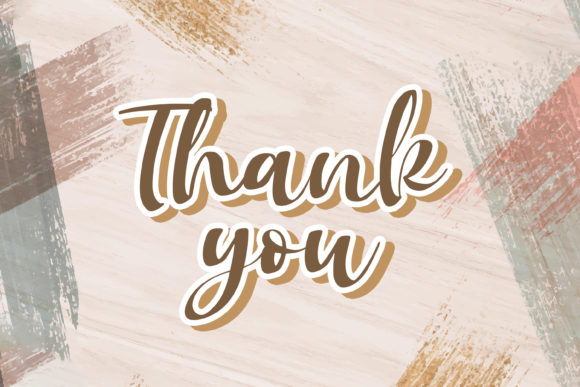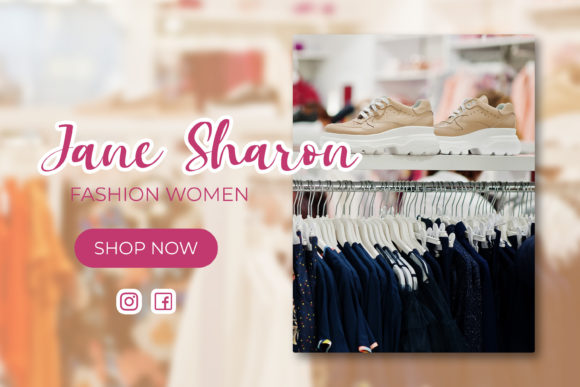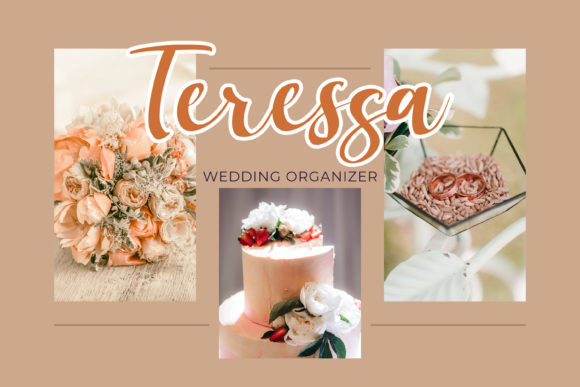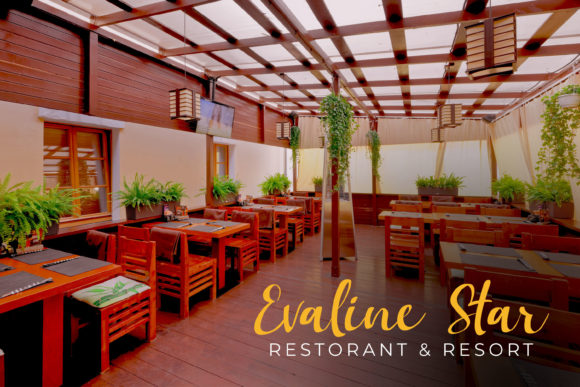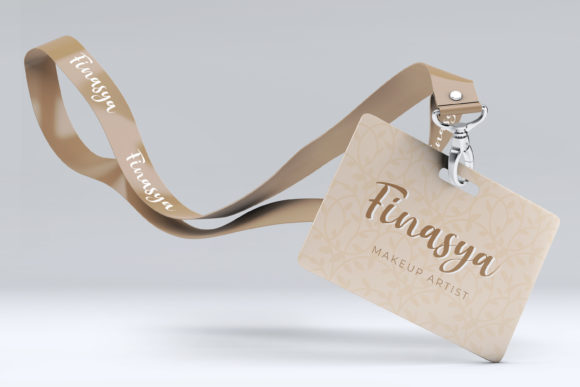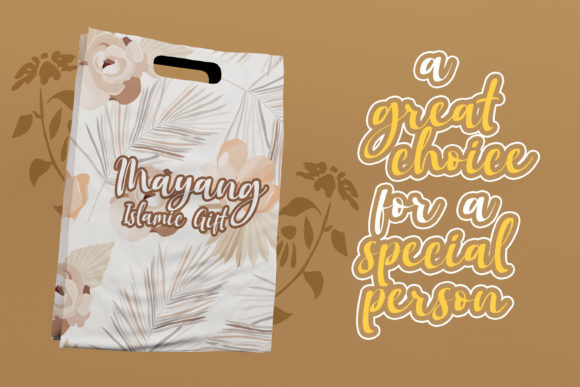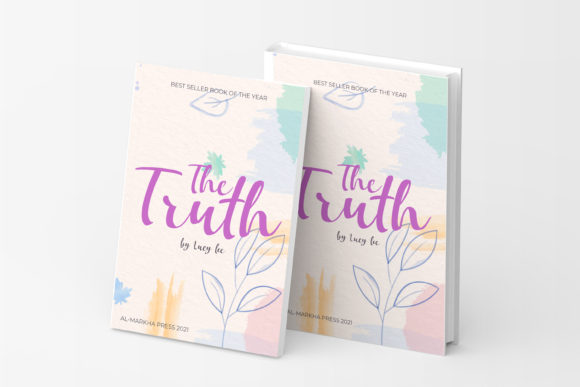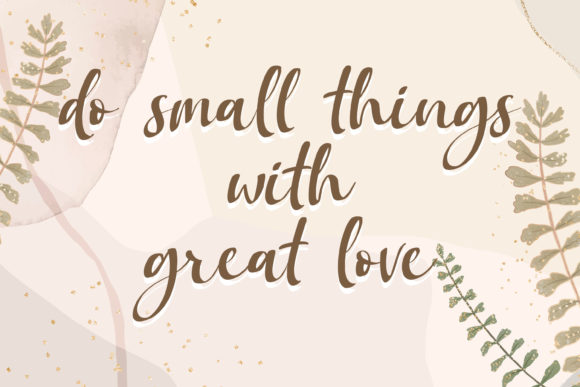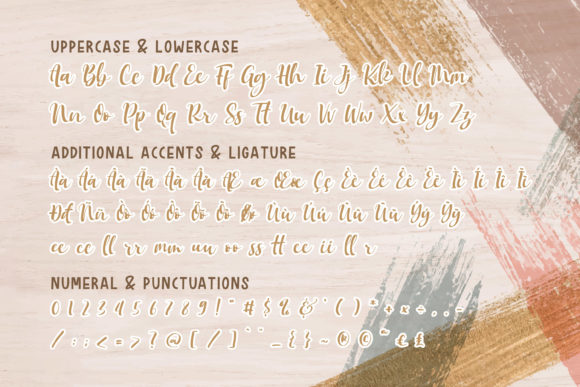
Mokalatte Font
About Mokalatte Font
Mokalatte is a dazzling script font. This font is neatly crafted and highly detailed. Whatever the topic, this font will be a wonderful asset to your font library, as it has the potential to enhance any creation.